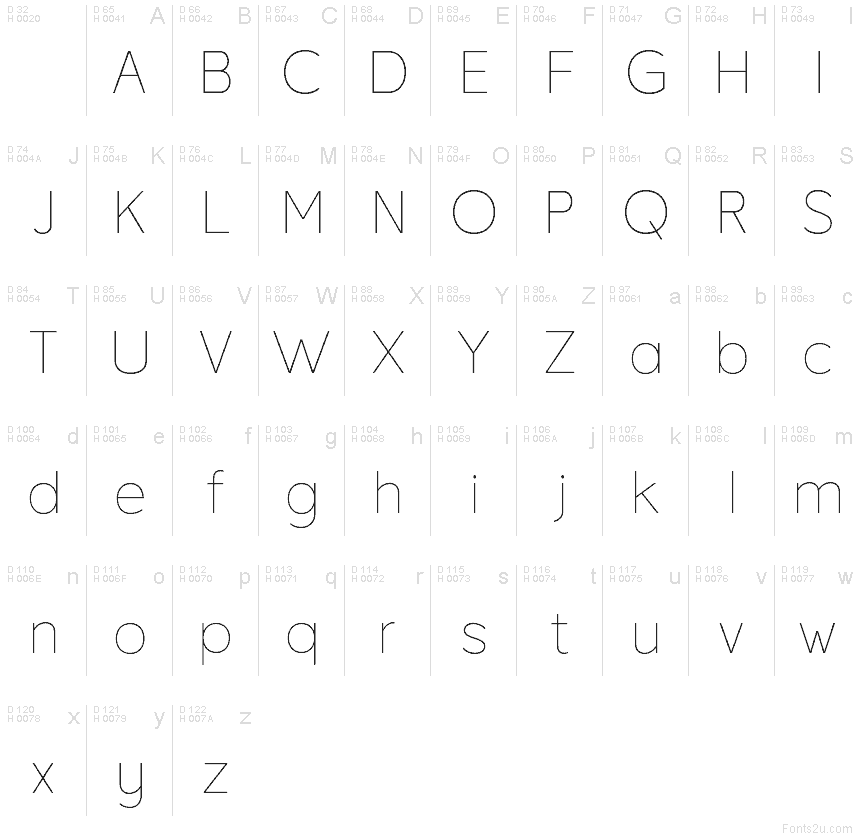
CS Quipster Regular Demo
CS Quipster font by Craft Supply Co. is a free hairline modern sans serif display font. It stands out with whisper-thin strokes and playful, wiry curves that feel both chic and a little mischievous. The letters breathe thanks to generous counters and tidy spacing, while subtle quirks in the joins keep the rhythm lively rather than sterile.
Using CS Quipster, headlines gain a cool, high-fashion clarity without losing personality. This free font shines on editorial mastheads, beauty or lifestyle branding, luxury packaging, minimalist posters, tech landing pages, and sleek portfolio sites. For balance, pair it with a sturdy grotesk or a warm book serif for body copy, and add a touch of tracking at larger sizes to emphasize its airy elegance.